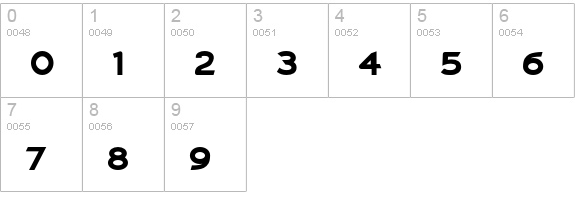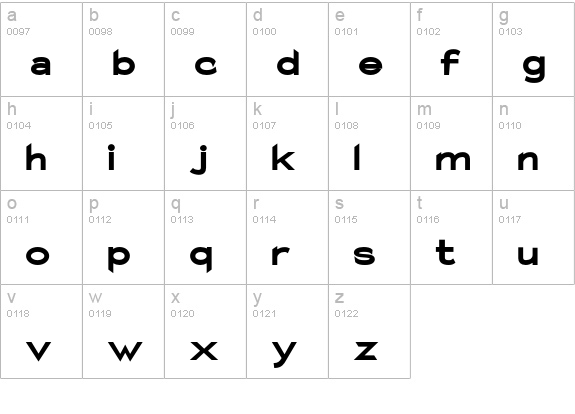
Charger Hemi Font Details
Introducing the Charger Hemi font, a bold and dynamic typeface that exudes power and energy. This font is perfect for those who want to make a strong statement with their design projects. Charger Hemi font is characterized by its thick and strong letterforms, reminiscent of the iconic muscle cars that inspired its creation. Each letter is meticulously crafted to capture the essence of speed, strength, and excitement. The sharp edges and bold strokes of this font give it a commanding presence, making it stand out in any setting. What sets Charger Hemi font apart is that it is not only visually striking but also freely available to download at FontsMarket.com. This means that you can use this font in your personal and commercial projects without any restrictions. Whether you're designing a logo, poster, or website, Charger Hemi font will add a touch of power and intensity to your creations. The versatility of this font allows it to be used in a variety of design styles and themes. It can be used to convey a sense of speed and adrenaline, making it an excellent choice for automotive-related projects. Additionally, Charger Hemi font can also be used to add a bold and impactful touch to sports, fitness, and adventure-themed designs. Designed with attention to detail and a passion for typography, Charger Hemi font is a must-have for any designer or enthusiast looking to make a statement. Its striking visual appeal and freely available download make it a valuable addition to your font collection. So, don't miss out on the opportunity to unleash the power of Charger Hemi font in your designs. Visit FontsMarket.com today and download this font for free. Take your designs to the next level and let Charger Hemi font be the driving force behind your creativity.